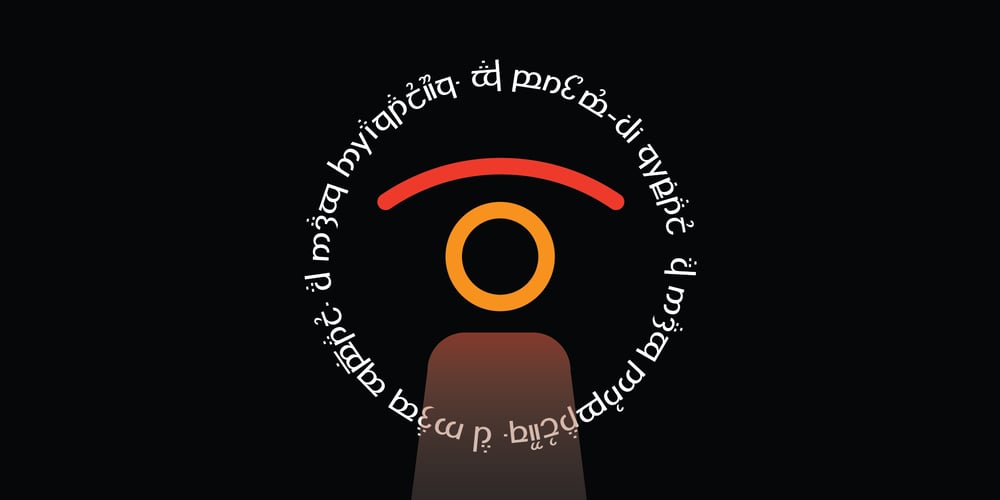
Modern Elvish
Modern Elvish font
Modern Elvish Font Family was designed by Ben Truelove and published by Typelove Fontworks. Modern Elvish contains 7 styles and family package options. Modern Elvish is a humanist sans serif typeface created for the Tengwar “English” mode as popularized in the Lord of the Rings books and films. I imagined the famous elves of this lore living in contemporary times and needing a no nonsense modern typeface for their branding, communications and UX design. Use this typeface for your RPG, LARPing or Cosplay needs.This typeface uses advanced font features such as ligatures and contextual alternates to convert any English text. I would recommend typing in English first, then converting to a font of this typeface.